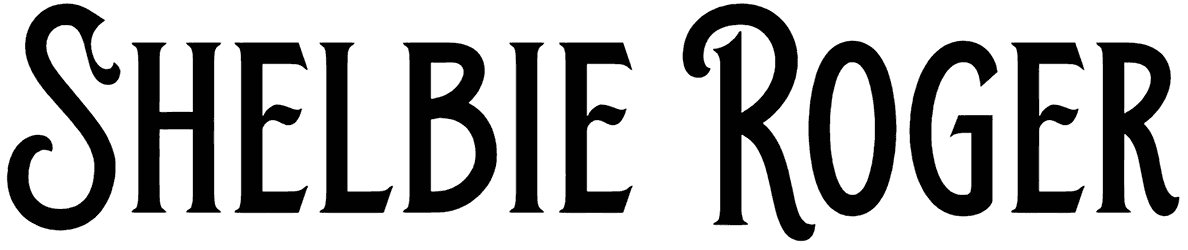
Shelbie Roger Font
When you look at the Shelbie Roger font, its elegant design grabs your attention at first glimpse. This barbershop font has a memorable style and can help you in several situations.
You may use the Shelbie Roger in magazine covers, websites, and applications; however, it does not support lowercase letters. This retro font’s letters have thin curvy tails, making them stunning. Besides, their playful form creates a new experience, so give it a try now.